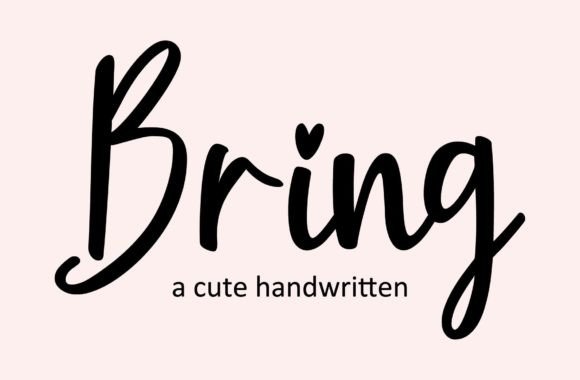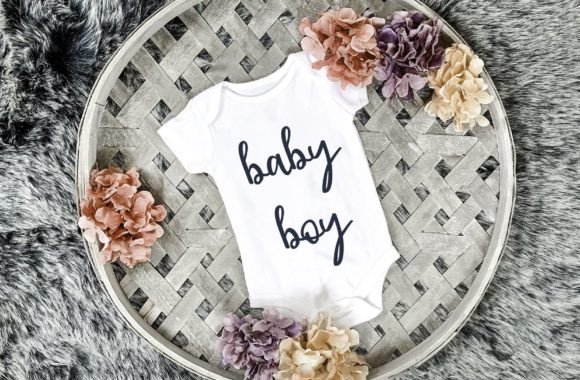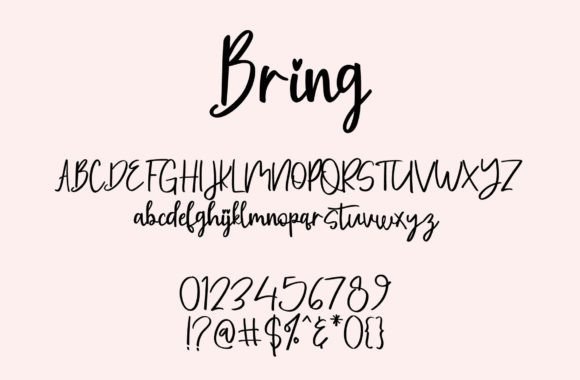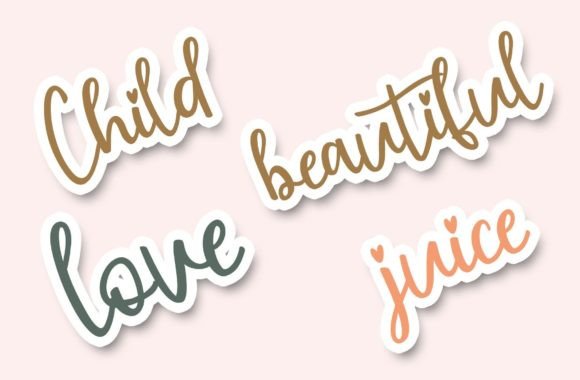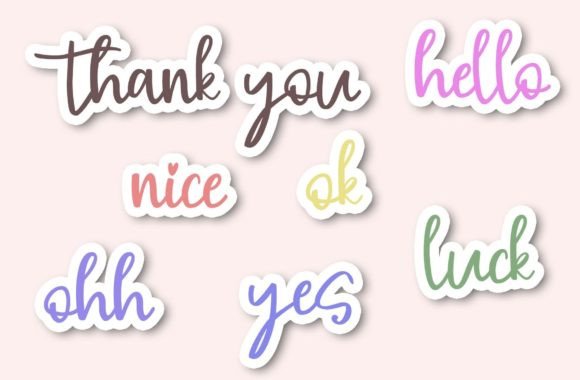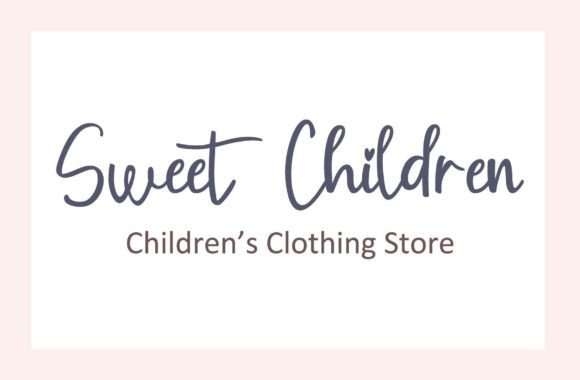
About Bring Font
“Bring” is a charming and adorable handwritten font that exudes a sweet and cute vibe. Its versatility makes it an excellent choice for a variety of creative projects, from crafting gorgeous wedding invitations to designing beautiful stationery art and creating eye-catching social media posts.
The sweet and cute nature of “Bring” adds a touch of playfulness to your designs, making it suitable for projects that aim to evoke warm and positive emotions. Whether you’re working on romantic wedding materials or creating visually appealing social media content, this font brings a delightful charm that captures attention.
The handwritten style of “Bring” enhances its authenticity, making it perfect for personal and heartfelt projects. Its adaptability ensures that it can seamlessly fit into different design contexts, allowing you to explore a range of creative possibilities.
In summary, “Bring” is more than just a font; it’s a creative asset that brings sweetness and cuteness to your projects. Fall in love with its versatile style and let it be the key to creating visually stunning and emotionally resonant designs across various mediums.